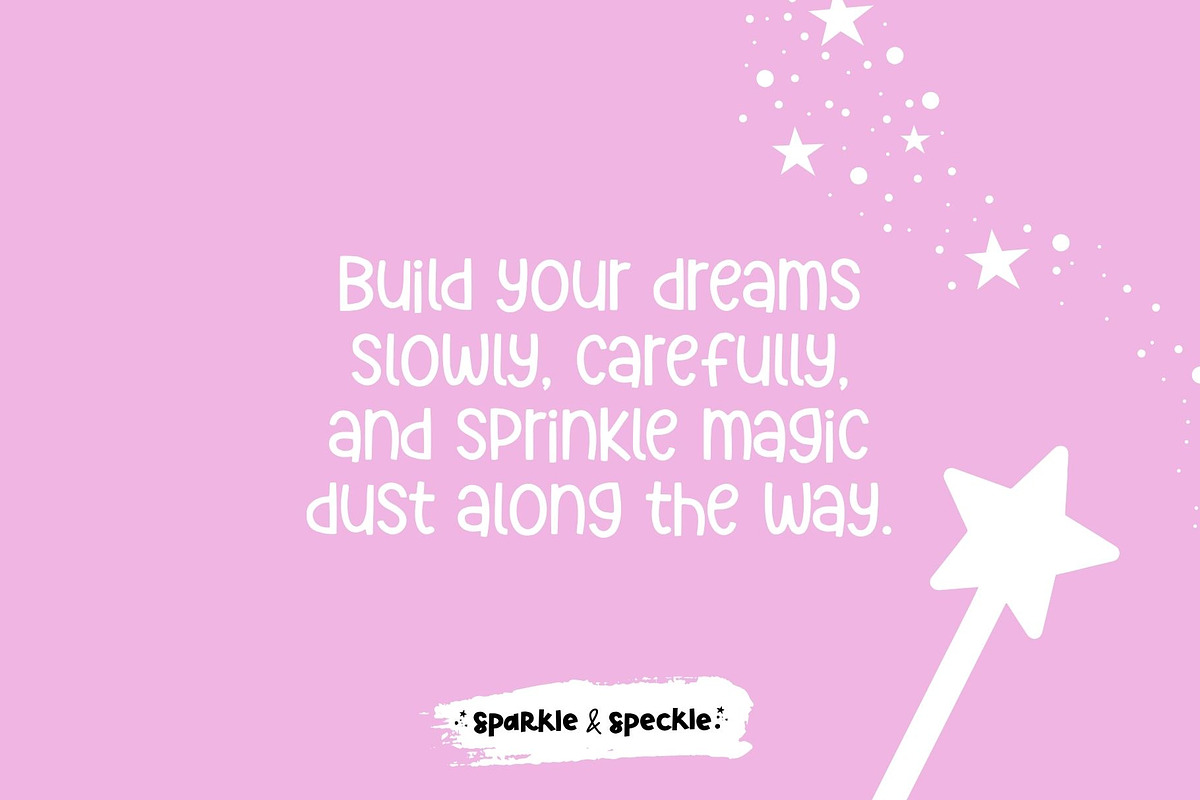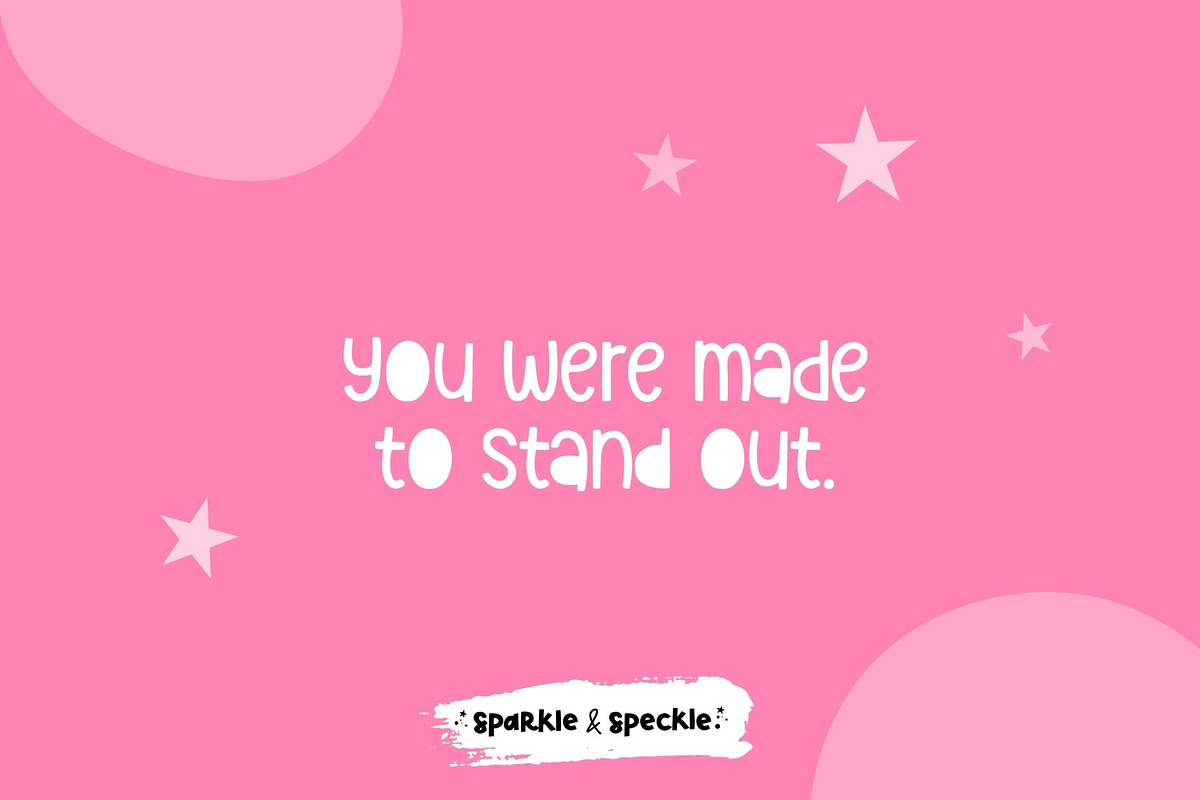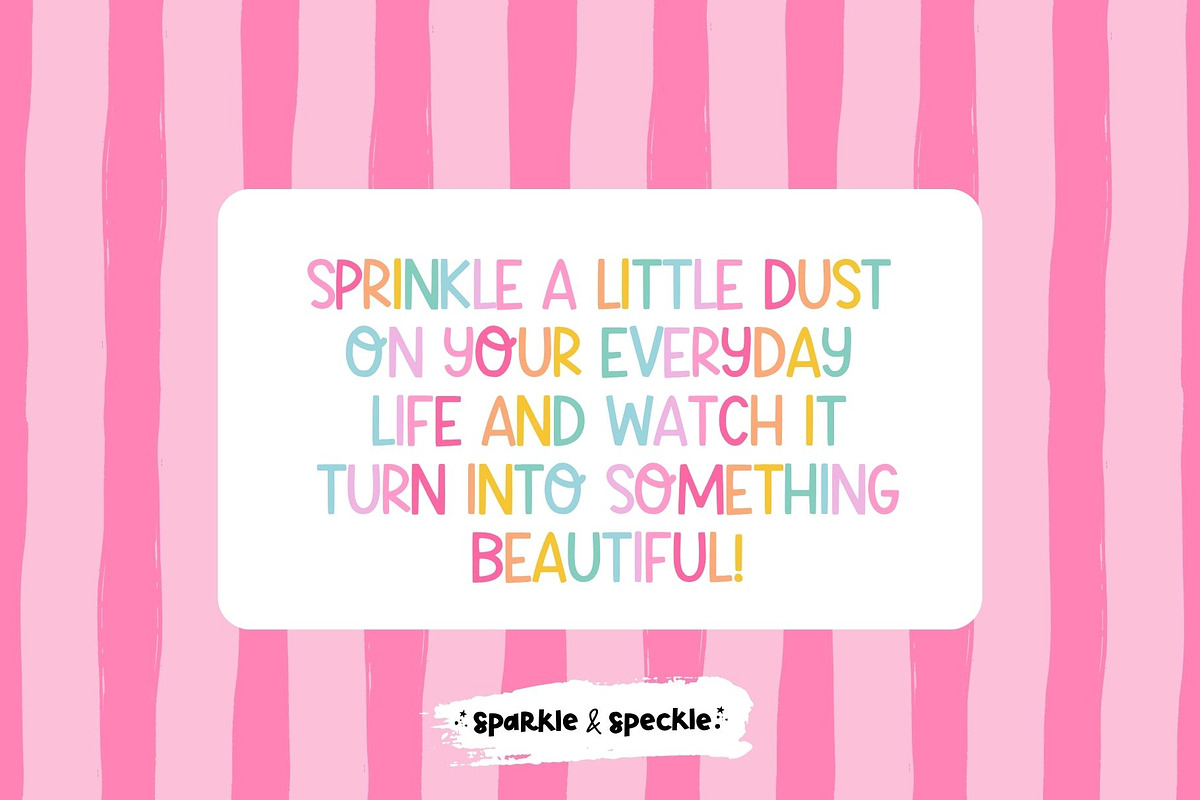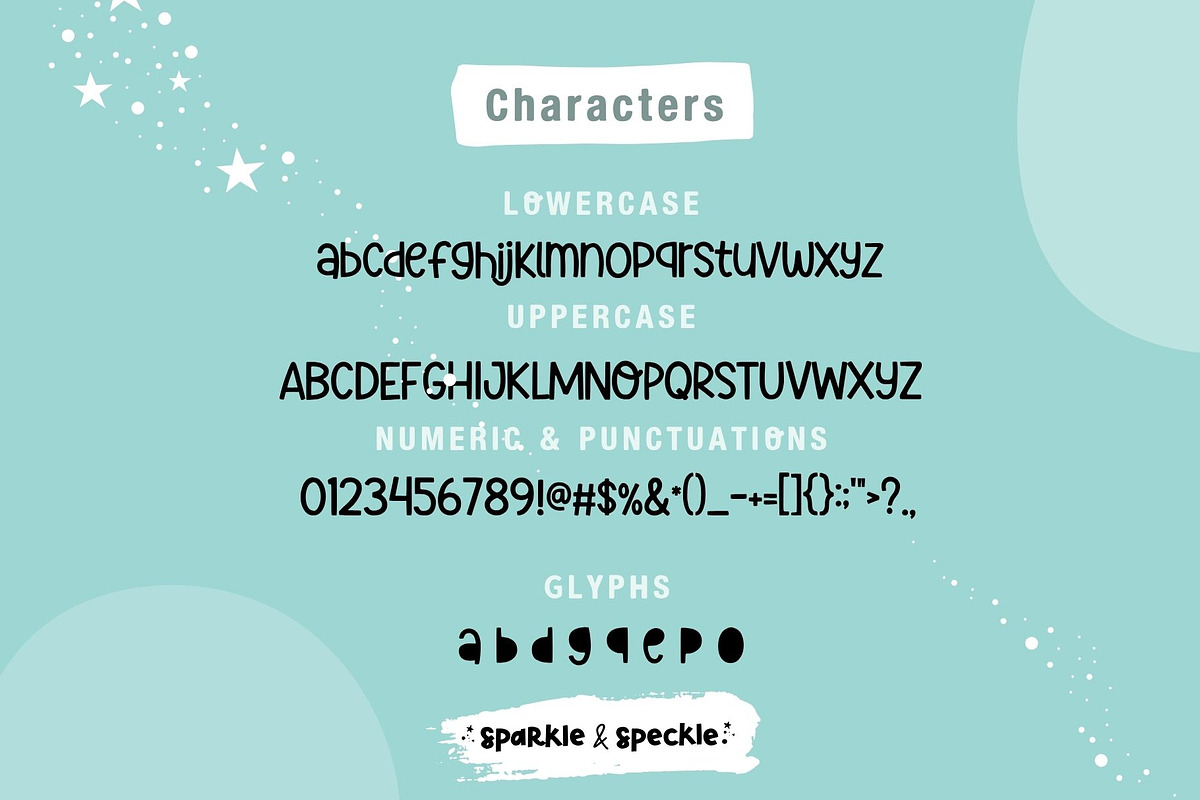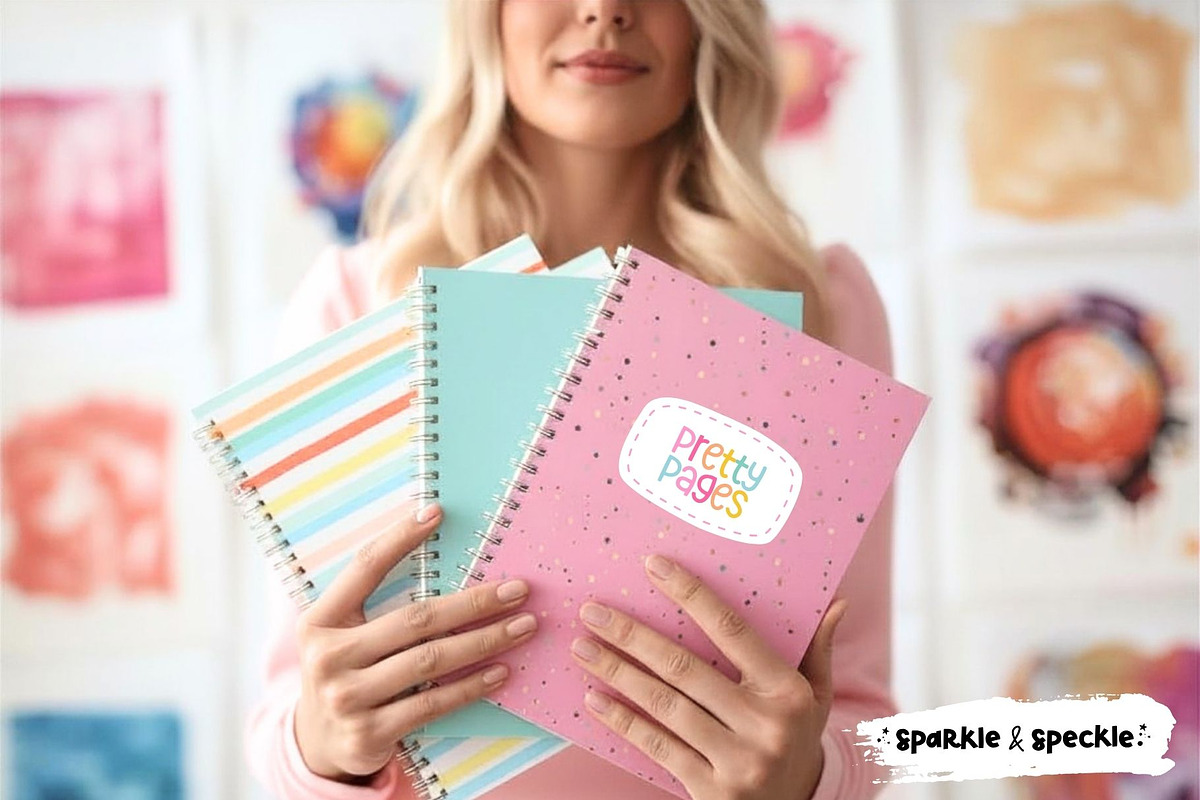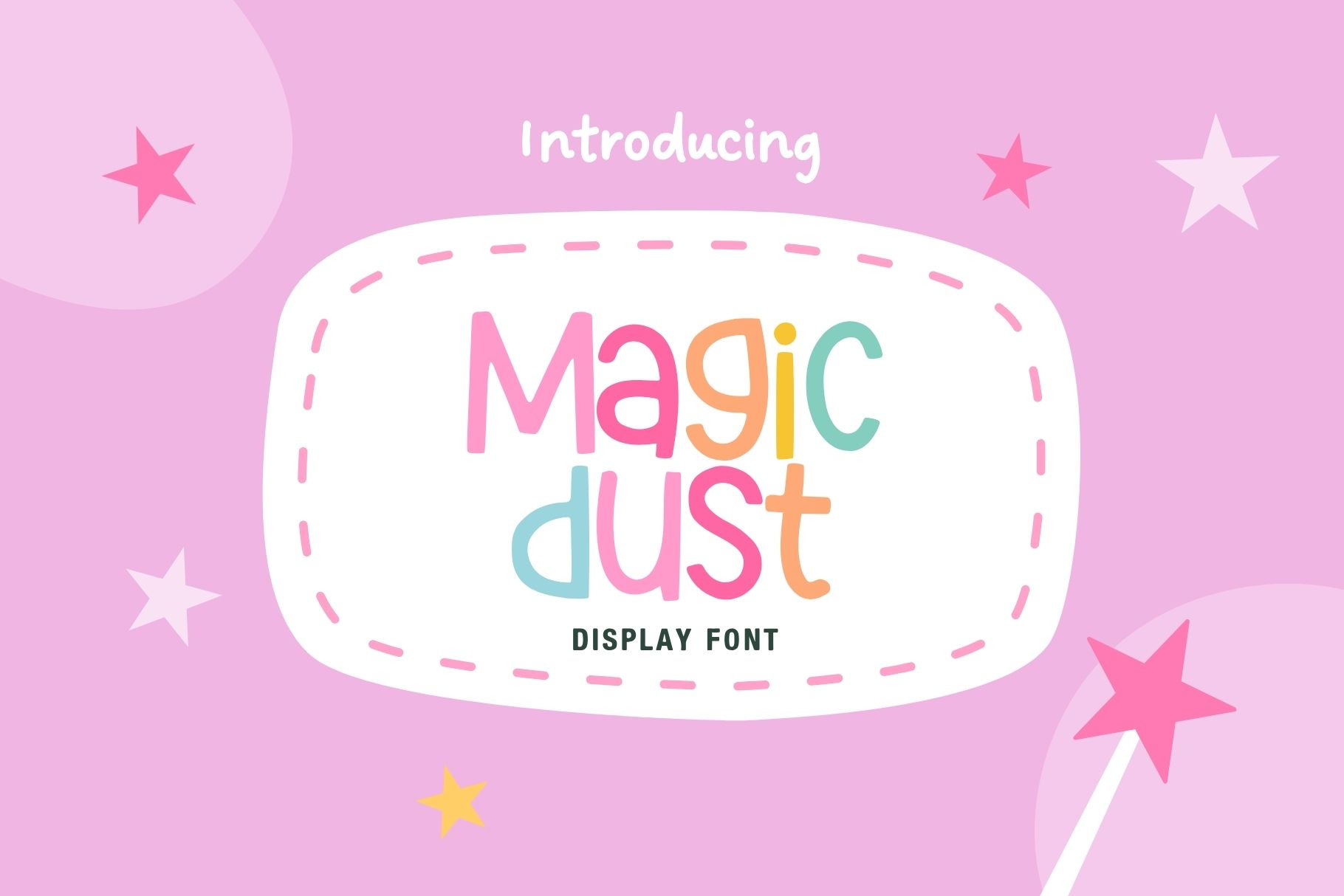
Magic Dust Playful Display Font
Magic Dust is a playful display font designed to bring fun, color, and personality into your creative projects.
With its rounded letterforms, soft curves, and cheerful style, this font creates a friendly and approachable look while remaining clean and easy to read. It’s perfect for designs that need a lighthearted and expressive feel.
Magic Dust works beautifully across branding, product design, and digital content, making it a versatile choice for creatives who want to add charm and energy to their work.
• kids and playful brands • craft and handmade businesses • stickers and product design • packaging and labels • social media graphics • invitations and party designs • DIY and creative projects
• playful display font • rounded, friendly letterforms • clean and easy to read • fun and expressive style • ideal for creative projects • suitable for print and digital use